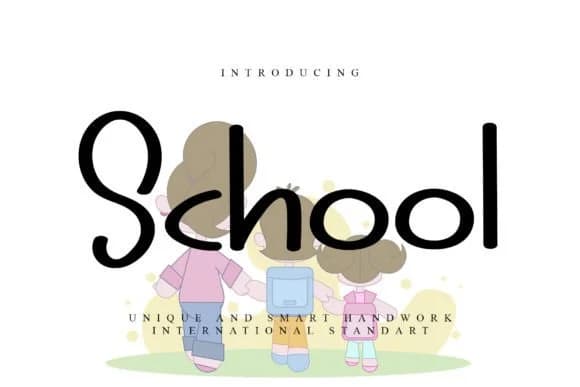
Picture a wedding invitation where the handwriting looks genuine but refined, or a coffee shop menu that feels personally crafted without sacrificing polish. School, the slab-serif creation of GiaLetter, bridges that gap between organic and professional with real elegance. The calligraphy-influenced letterforms excel on wedding stationery, boutique product packaging, t-shirt designs, and branded stationery systems where handwritten warmth genuinely strengthens the brand story and connects with customers.
What makes School distinctive is its varied baseline, which creates a naturally sketched feel rather than the mechanical consistency of typical digital typefaces. The letterforms have genuine character and movement, feeling hand-drawn throughout. Behind the scenes, School is PUA encoded, giving you direct access to all ligatures, alternates, and decorative swashes. No hunting through special character menus or wrestling with technical workarounds to get the flourishes you want.
The result is a typeface that looks handcrafted in luxury packaging contexts, print design work, and retail signage, yet remains consistently crisp and readable at any size. The multiple weights give you control over how prominent the handwritten character feels in a given layout. Get School on Creative Fabrica and let the handwritten touch do the heavy lifting in your next design project.
- Sturdy, Confident, Calligraphy Font
School Font is a slab serif font that shines as a display or heading face. Pair it with a clean sans-serif or serif font for body text β the contrast creates a clear hierarchy while the two styles stay balanced and easy to read.